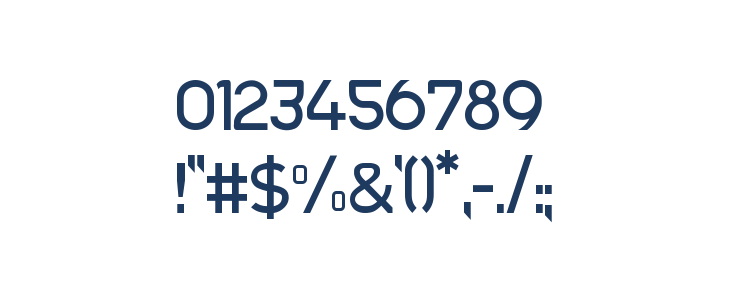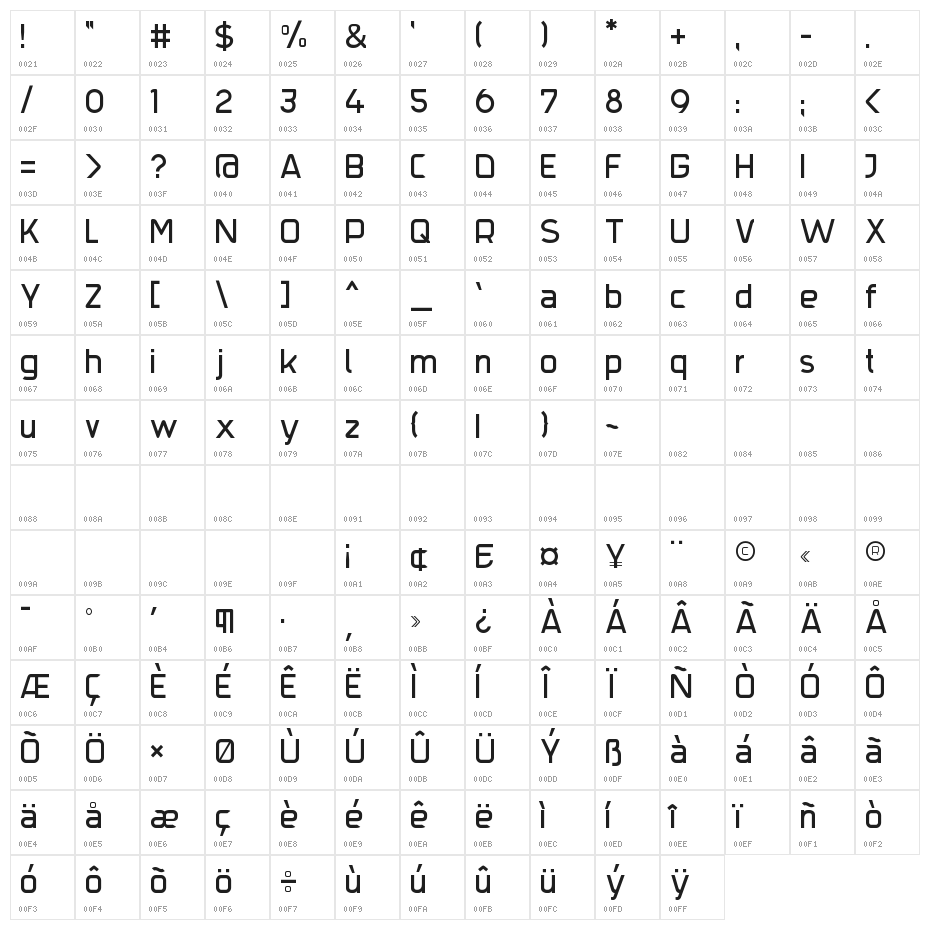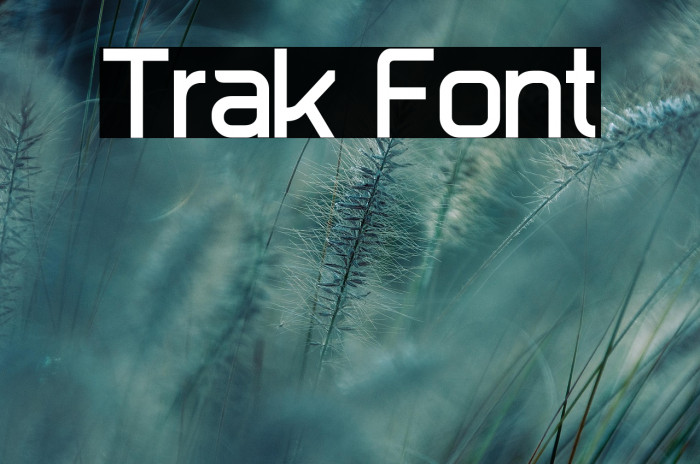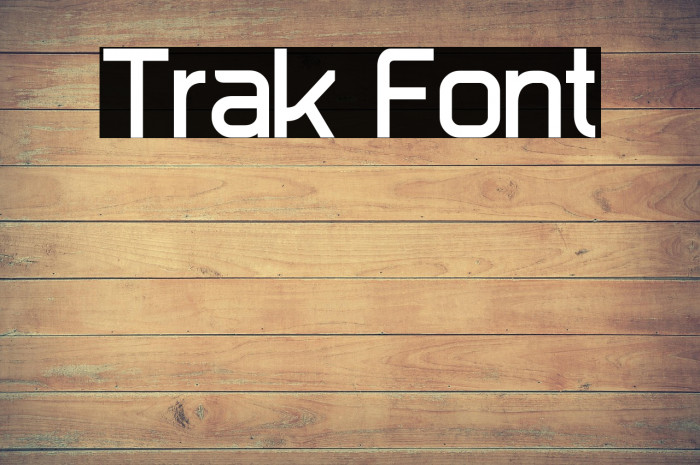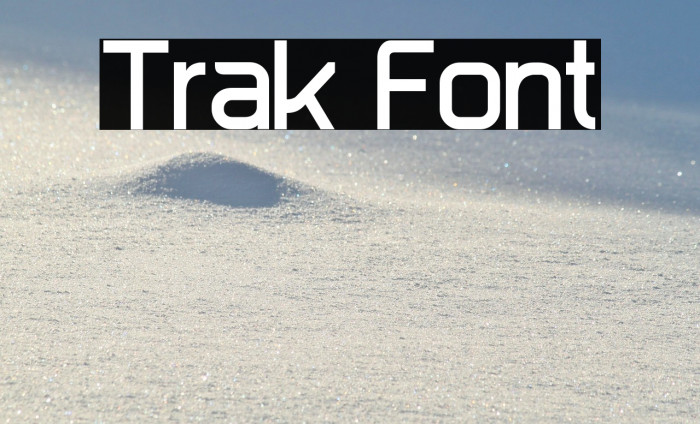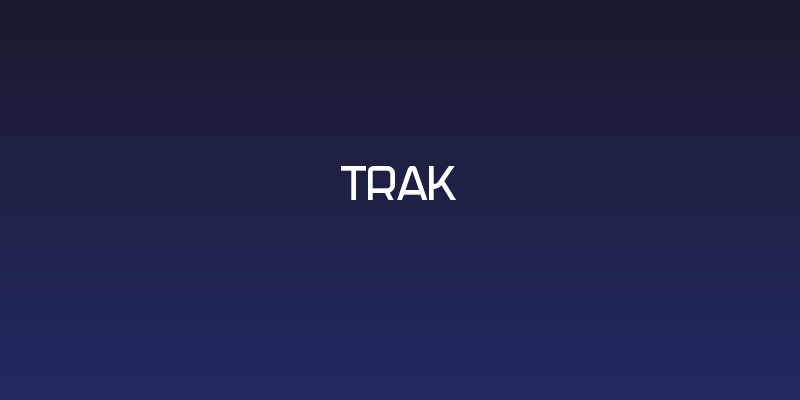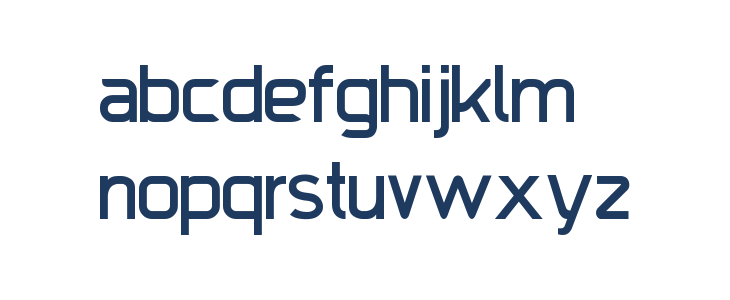
Trak Font
Trak Description
This font features a modern and sleek design with geometric influences. The characters are crafted with a uniform stroke width, giving it a clean and contemporary appearance. The uppercase letters are bold and structured, while the lowercase letters maintain a consistent style with rounded edges. The numerals are distinct and easy to read, complementing the overall design. Special characters are well-integrated, maintaining the font's cohesive look. This font is versatile, suitable for various design applications where a modern and professional aesthetic is desired.